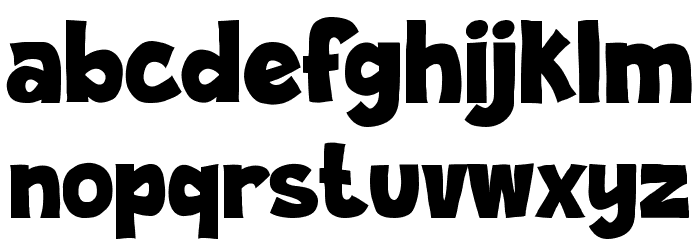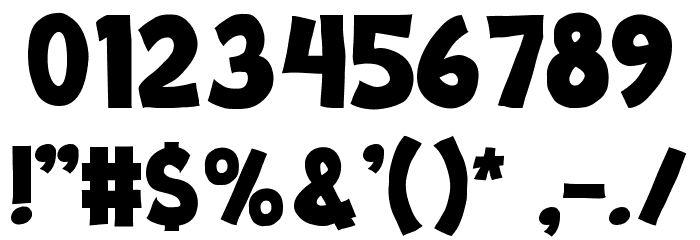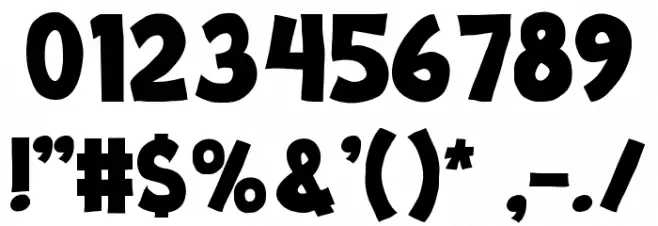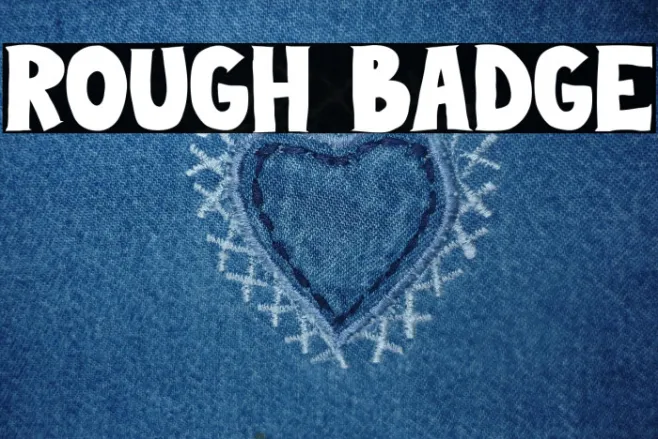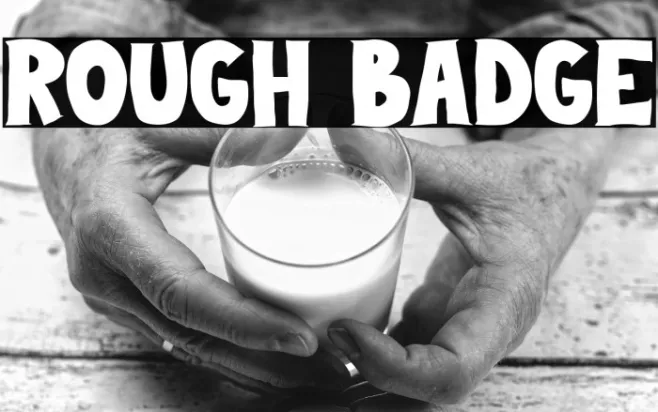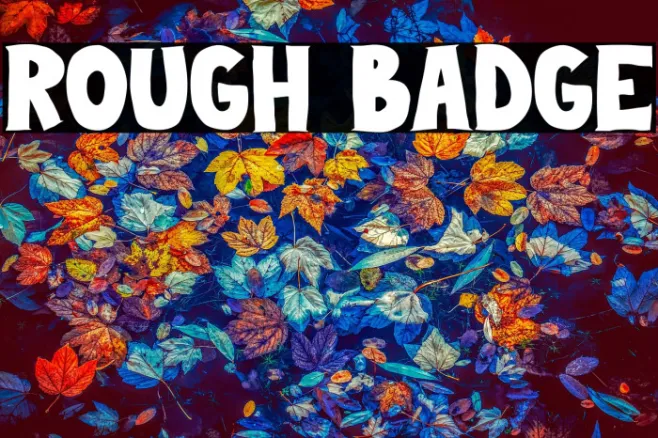
ROUGH BADGE Font
This font exudes a playful and bold character, with its thick, uneven strokes and slightly irregular shapes. The uppercase letters are robust and commanding, while the lowercase letters maintain a whimsical charm. The numbers are equally bold, ensuring visibility and impact. Special characters are crafted with the same playful style, making them suitable for creative and informal designs. The overall appearance is dynamic and energetic, perfect for grabbing attention.
A playful, bold font with thick, uneven strokes and a whimsical charm.
- Proposed Projects: Ideal for children's books, comic strips, playful branding, and eye-catching posters.
- Overall Style: Playful, Energetic
- Use Case: Headlines, Posters, Branding